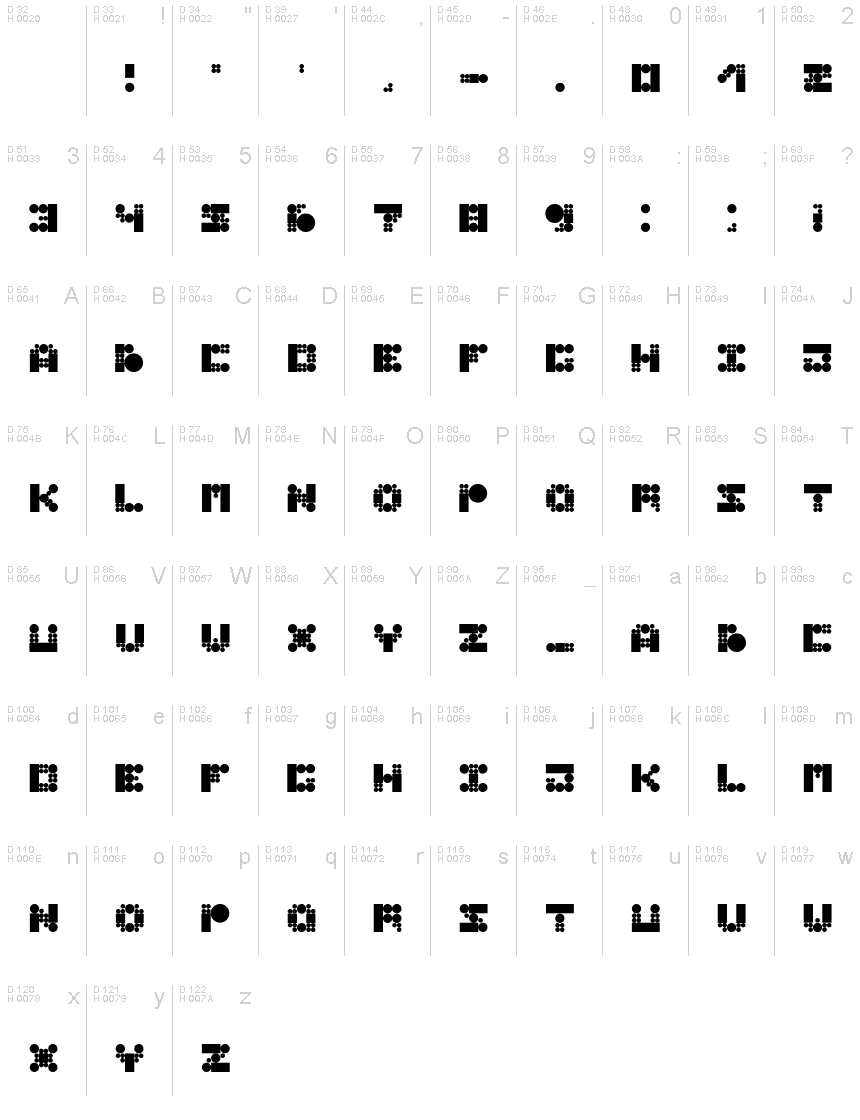
SHAPES
Shapes, the extra-bold and expanded display font designed by Andrea Siracusa, is a bold and expressive typeface that will bring your projects to life. This decorative font features unique shapes and lines that add a touch of creativity to any design. Its wide width makes it perfect for headlines, logos, and other eye-catching designs. Use Shapes to create attention-grabbing posters, advertisements, or branding materials for a modern and stylish look. With its playful yet sophisticated style, this font is suitable for a range of projects from fashion to tech startups. Make your designs stand out with the bold Shapes font!